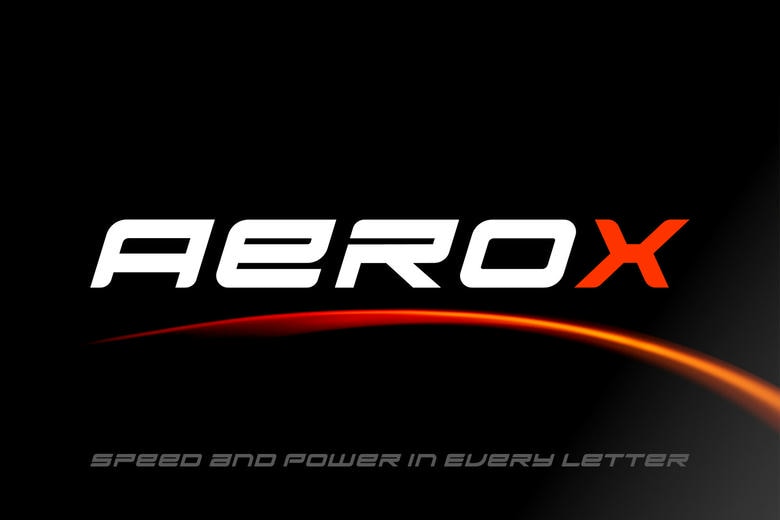
Aerox Font
Aerox is a wide-proportional, slanted display typeface with sharp angles and wide proportions. The italicized design is created particularly to communicate the motion, speed and futuristic look. It has regular stroke weight and contains standardized uppercase characters and stylized lowercase substitutes, figures, and complete punctuation characters.
This kind of typeface is a functional selection used to create effective headlines, automotive graphics, and esports brands, technology interfaces, and industrial branding initiatives, which are displayed.
Aerox Display Font